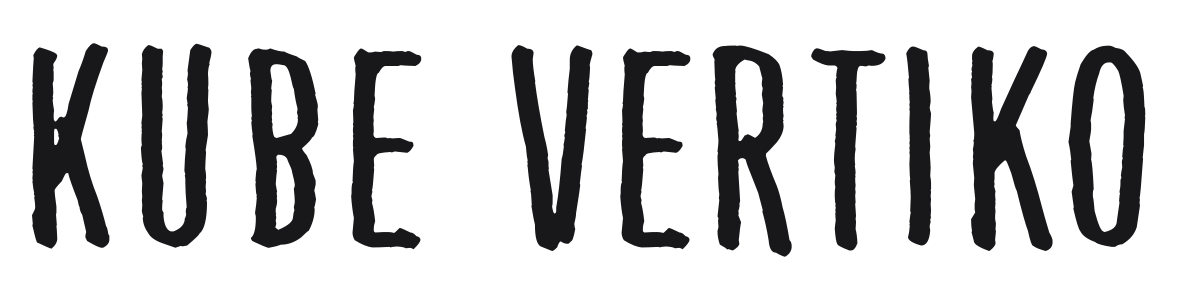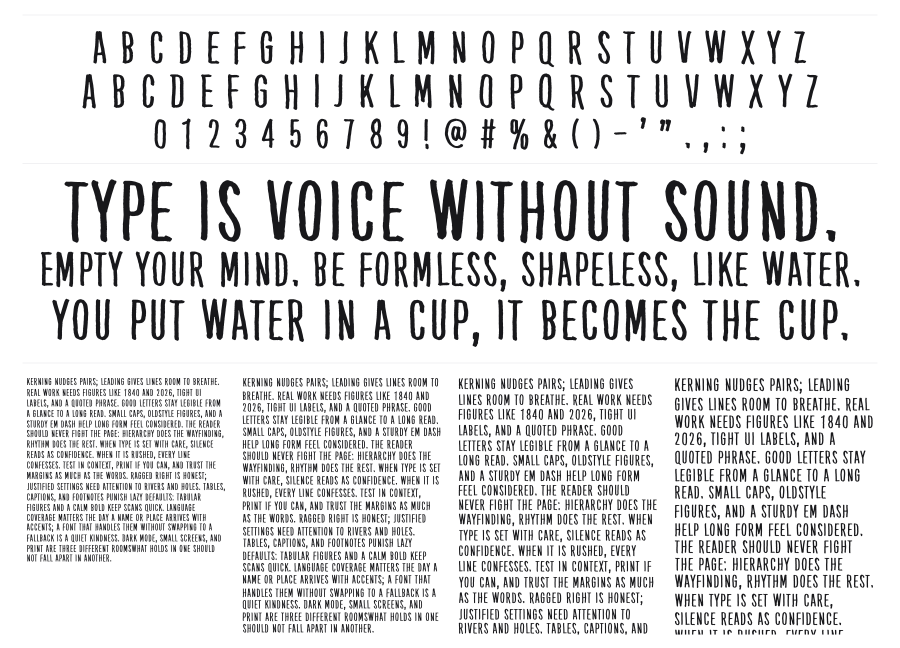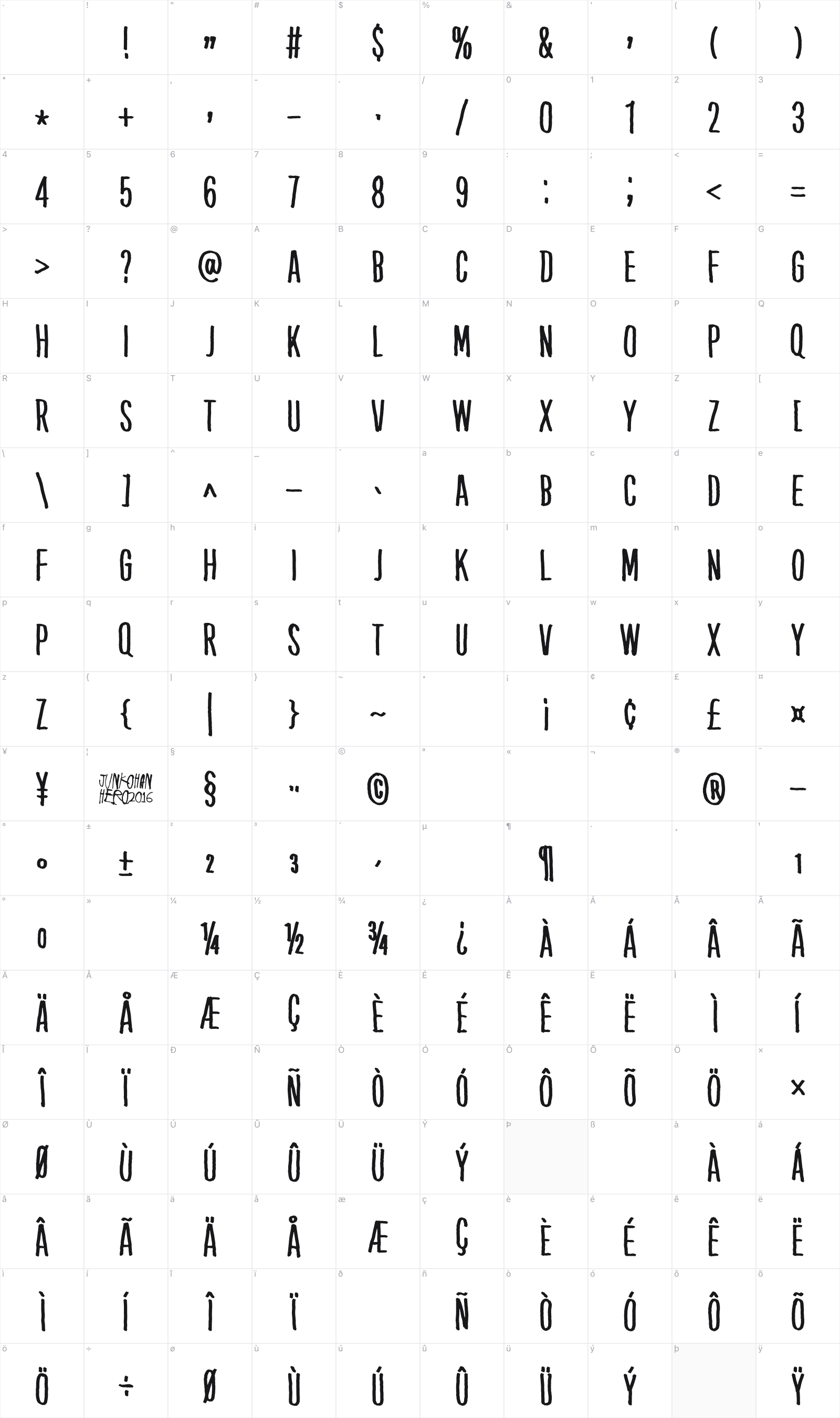
Kube Vertiko
Kube Vertiko is a tall, condensed display sans with a raw hand-inked texture that gives every stroke a deliberately rough, stamped quality. The narrow proportions and upright construction keep it legible at headline sizes, while the distressed edges push it firmly into expressive territory. It works well where you want structure with visible human energy.